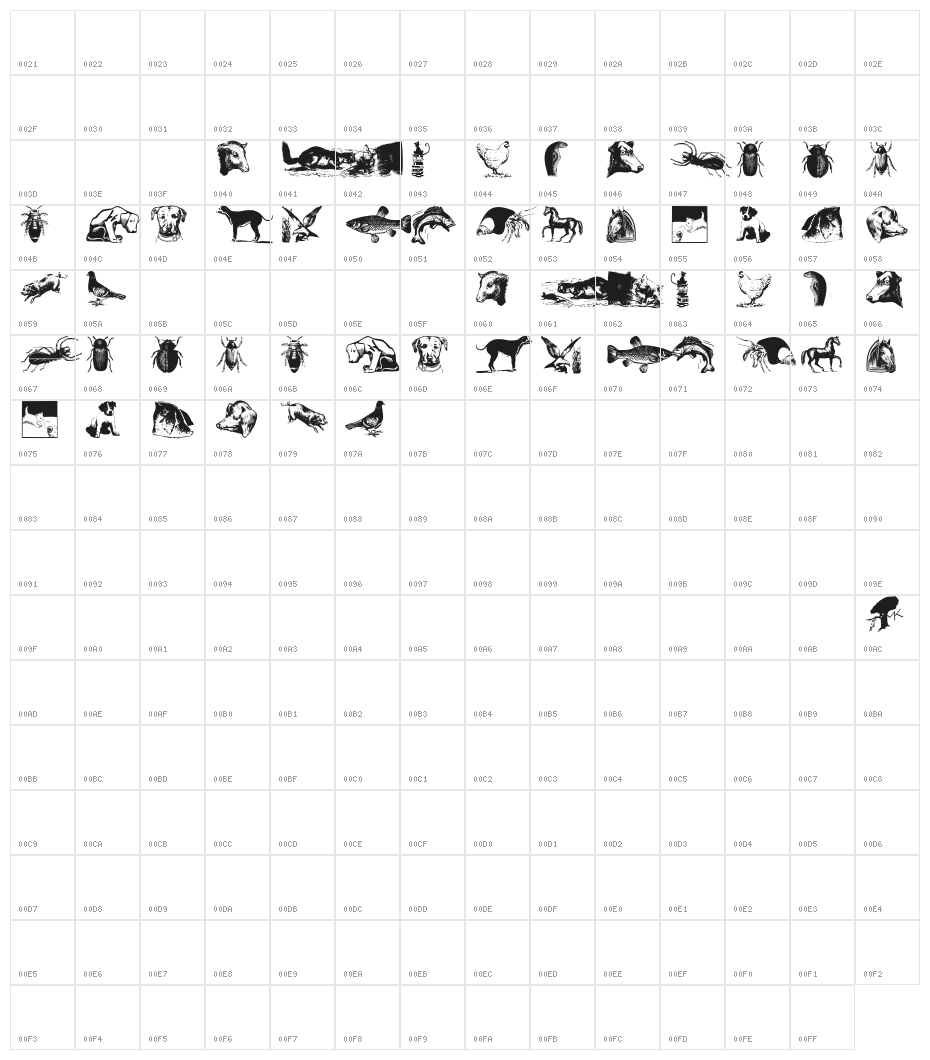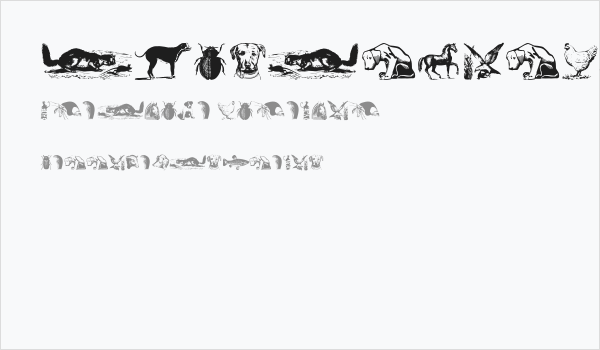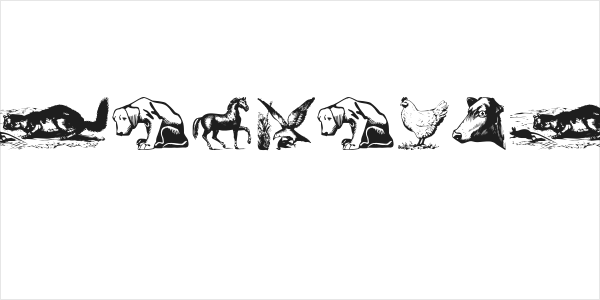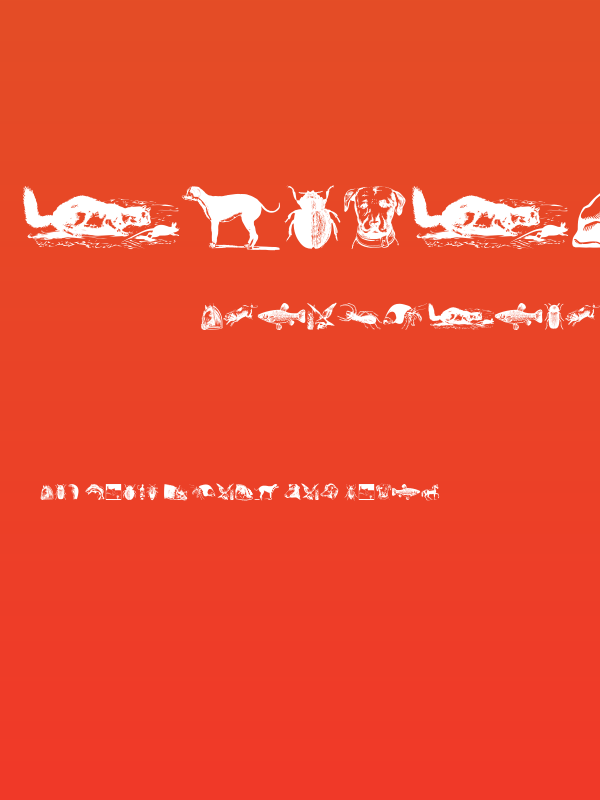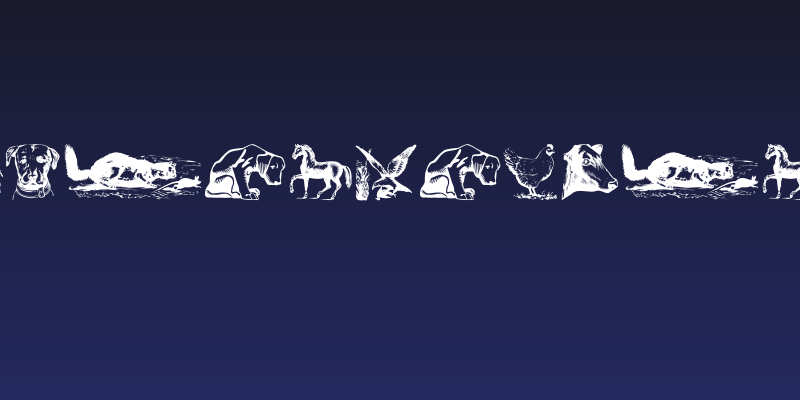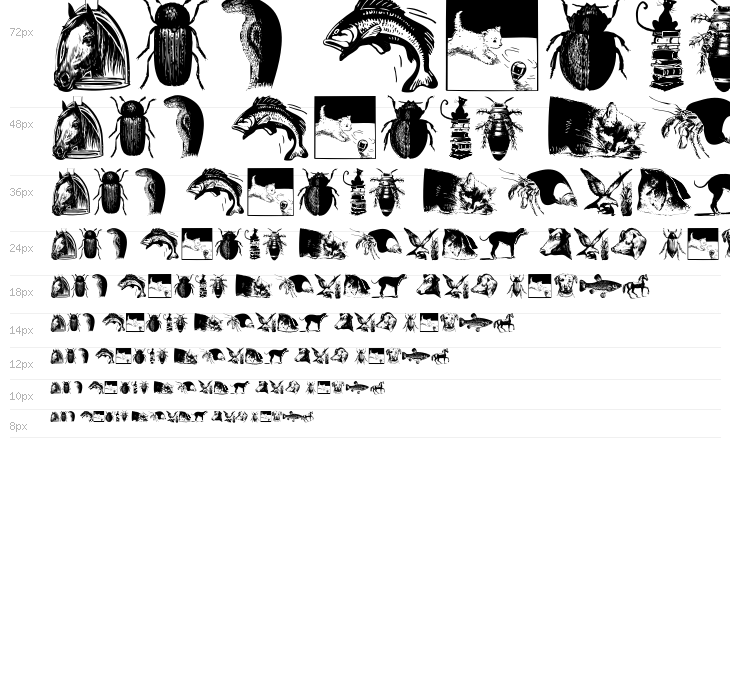
AnimalsOldfashion Font
A decorative dingbat set featuring detailed, vintage-style black-and-white illustrations of various animals, including mammals, birds, insects, and fish, rendered with fine lines and shading reminiscent of old-fashioned engravings.
Overall StyleVintage, Decorative
Use CaseDecorative elements, Illustrative accents, Themed graphics
Proposed ProjectsChildren's books, educational materials, vintage-themed posters, scrapbooking, invitations, decorative borders.